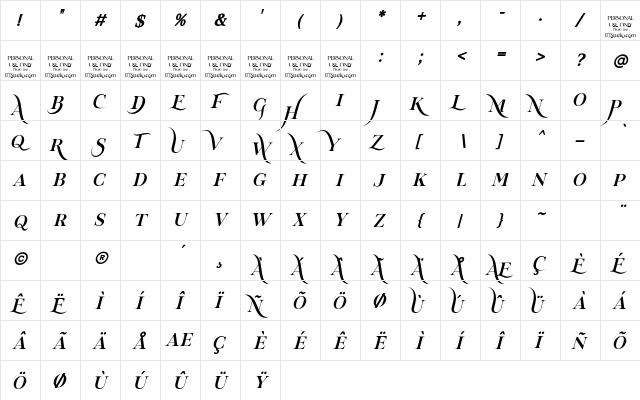
Tornado Italic
Design Context for Tornado Typeface
Tornado is a composed and adaptable typeface that performs quietly and consistently across a wide range of design contexts. The slanted form adds forward momentum and visual energy.